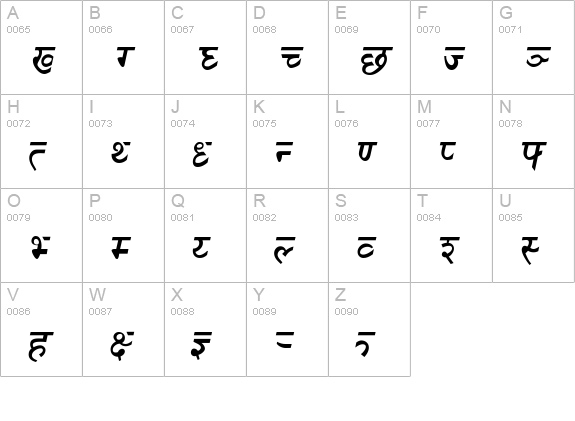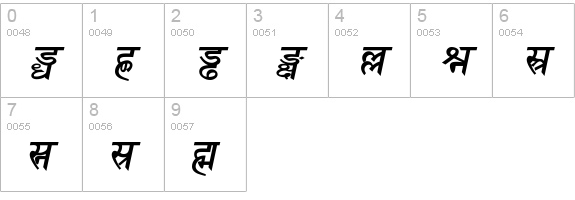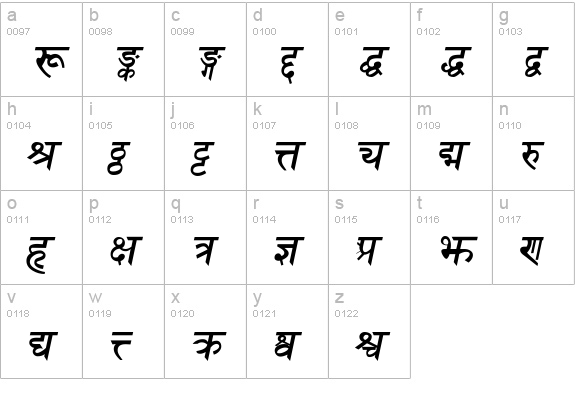
Sanskrit BoldItalic Font Details
Introducing Sanskrit BoldItalic, a stunning and visually striking font that combines the elegance of Sanskrit script with a bold and italic twist. This unique typeface is perfect for adding a touch of sophistication and intrigue to any design project. Sanskrit BoldItalic is specifically designed to capture the essence of the ancient Sanskrit language, with its intricate curves and fluid strokes. Each letter is beautifully crafted, exuding a sense of grace and beauty that is unmatched. This font is not only visually captivating, but also highly versatile. Its bold and italic style allows for a wide range of creative possibilities, making it ideal for everything from logos and branding to headlines and titles. Whether you're designing a poster, a website, or a book cover, Sanskrit BoldItalic will undoubtedly make a bold statement. What makes Sanskrit BoldItalic even more special is that it is available for free. Yes, you read that right! This exceptional font can be freely downloaded at FontsMarket.com, a trusted source for high-quality fonts. This means that you can enhance your designs without breaking the bank, making it accessible to designers of all levels. So why wait? Experience the beauty and versatility of Sanskrit BoldItalic today. Download it for free at FontsMarket.com and embark on a creative journey that will captivate and inspire. Let Sanskrit BoldItalic breathe life into your next design project and leave a lasting impression on your audience.